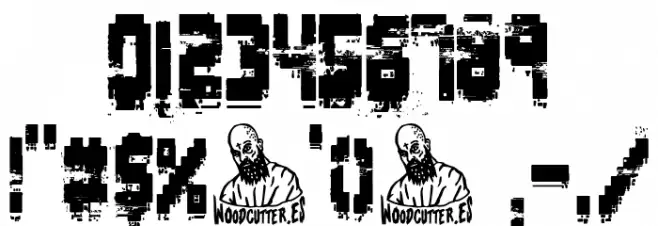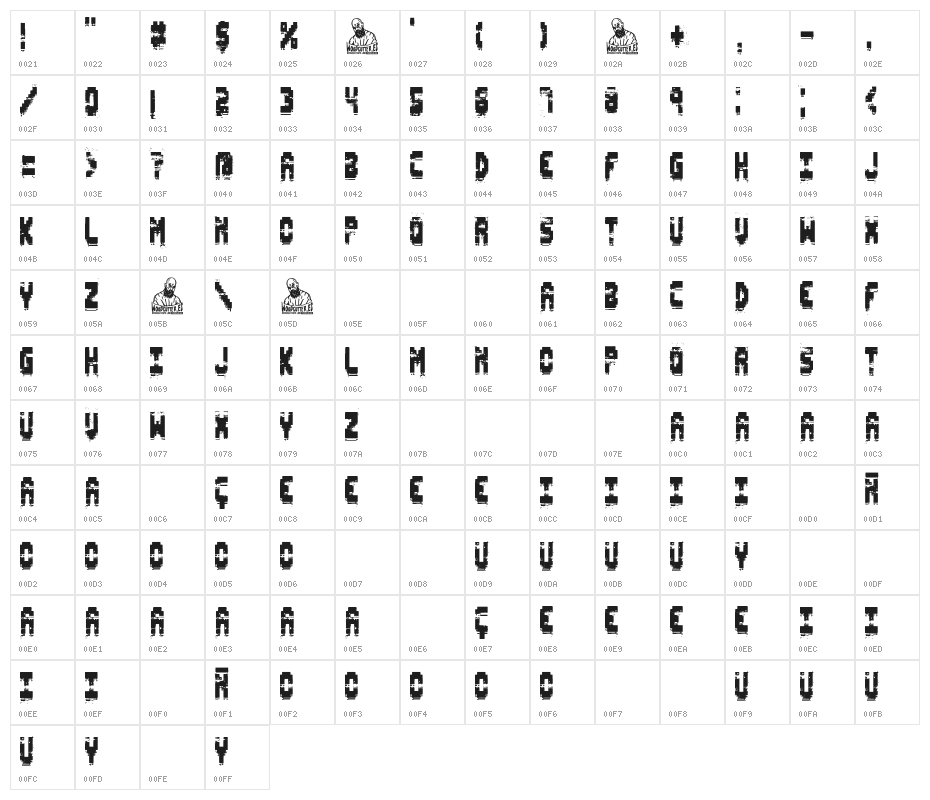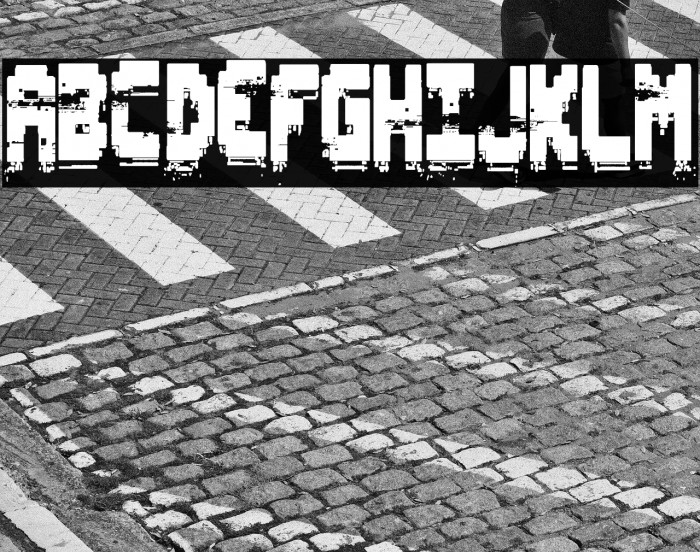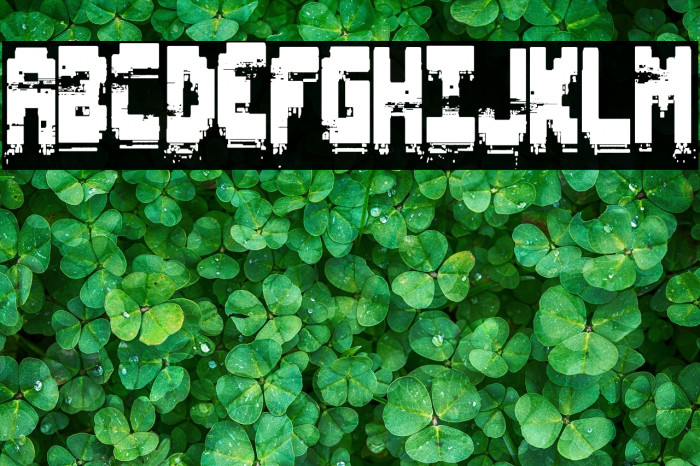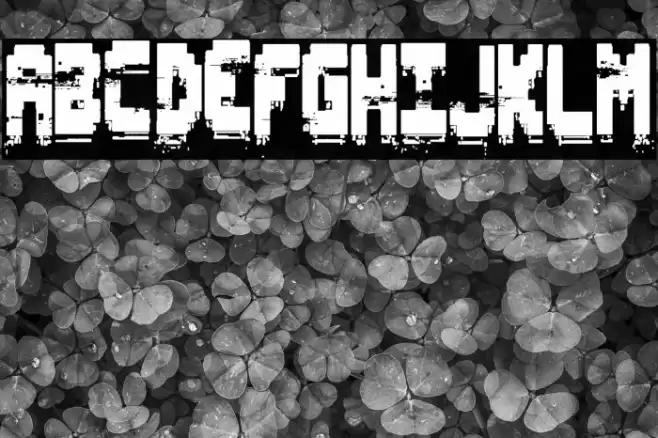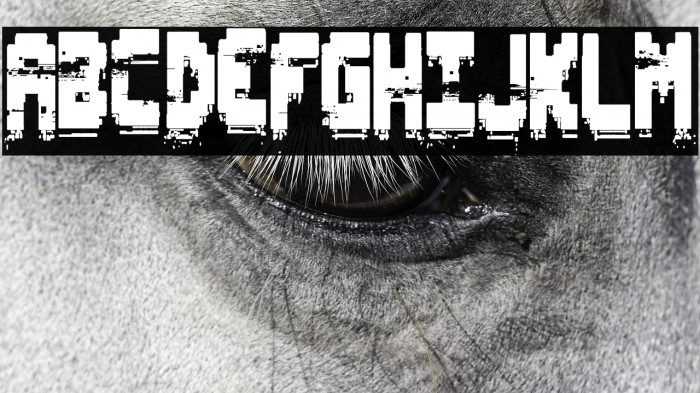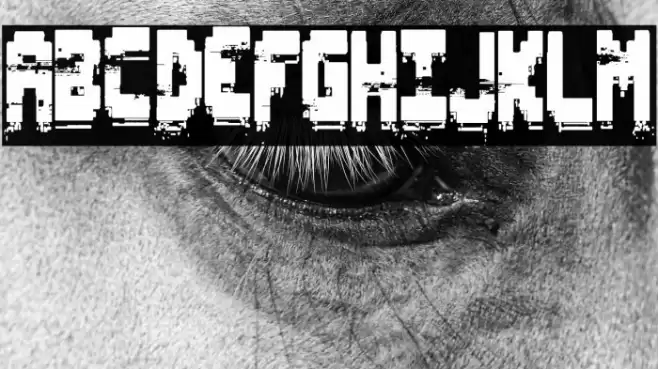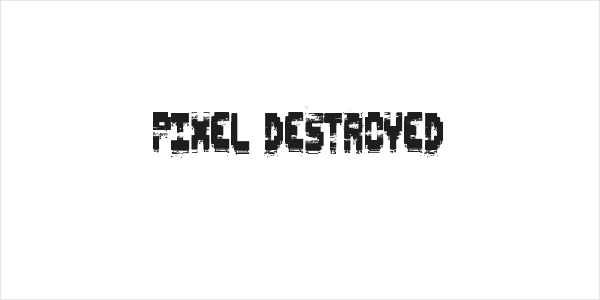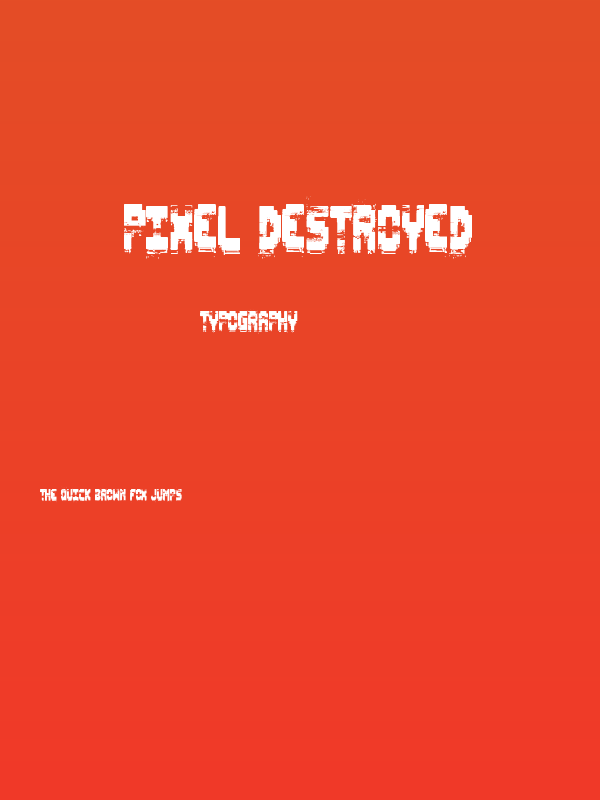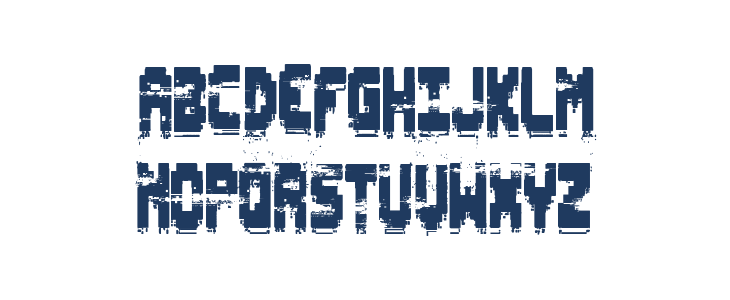
Pixel Destroyed Font
Pixel Destroyed Description
This font features a rugged, distressed aesthetic, characterized by a pixelated, eroded appearance that gives it a unique, grunge-like quality. The letters are bold and blocky, with irregular edges that create a sense of decay or destruction, reminiscent of worn-out digital displays or graffiti. The uppercase and lowercase letters maintain a consistent style, while the numbers and special characters follow the same distressed theme, adding to the overall cohesive look. This font's design is striking and unconventional, making it stand out in any project.
| Overall Style | Grunge, Urban, Distressed |
| Proposed Projects | Ideal for edgy designs, album covers, posters, urban-themed graphics, and any project requiring a bold, distressed look. |